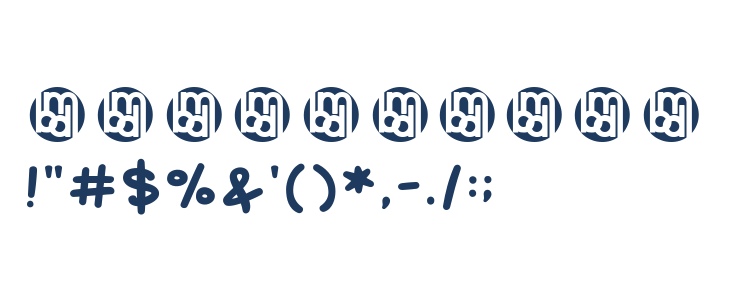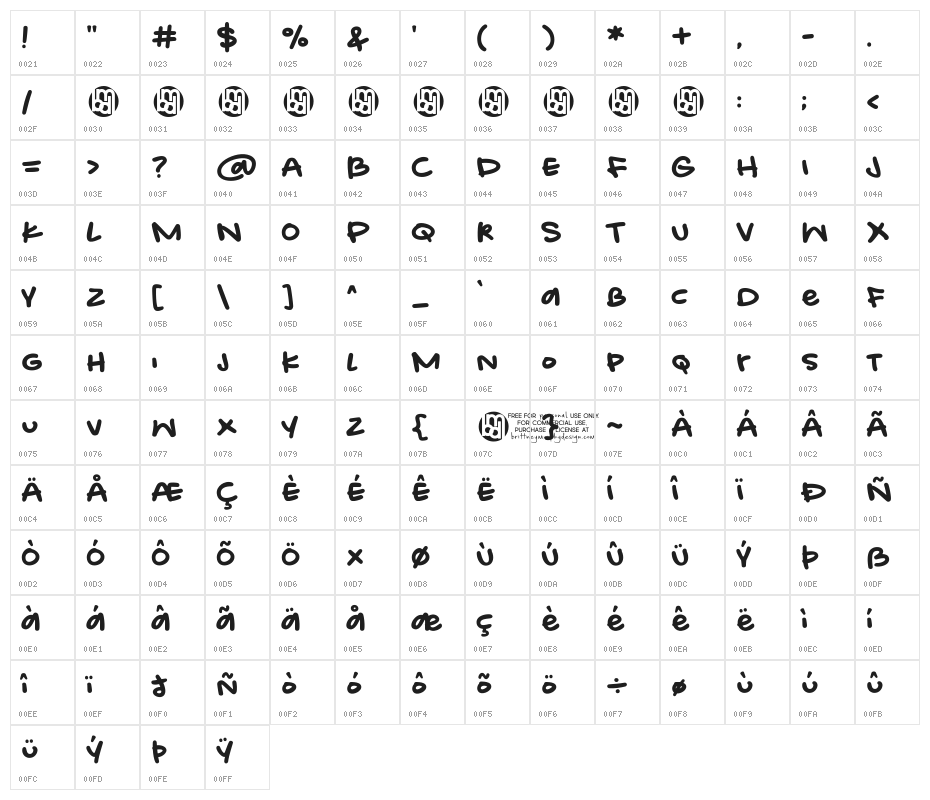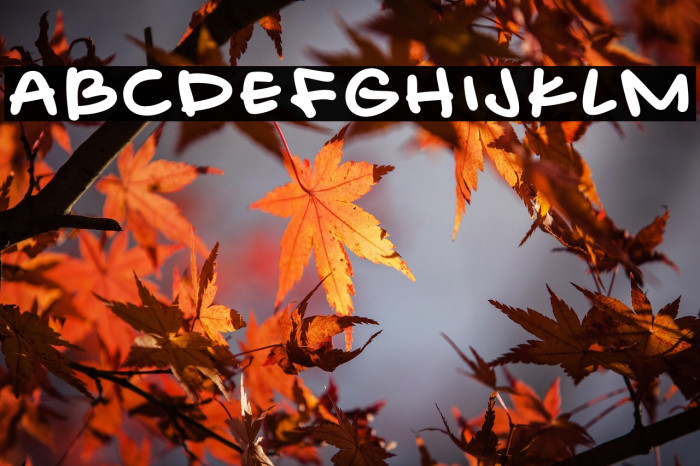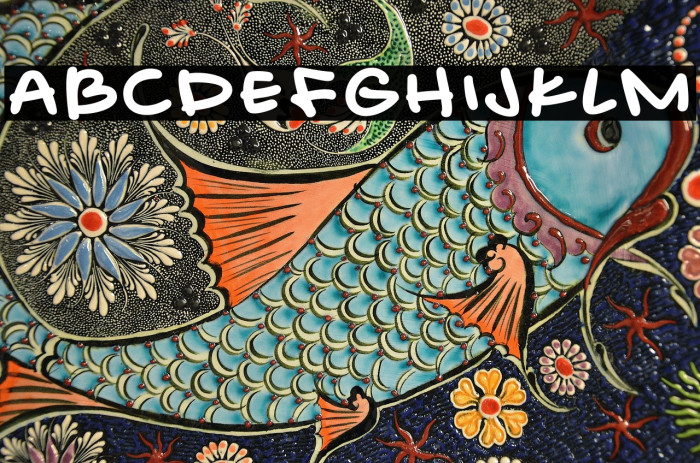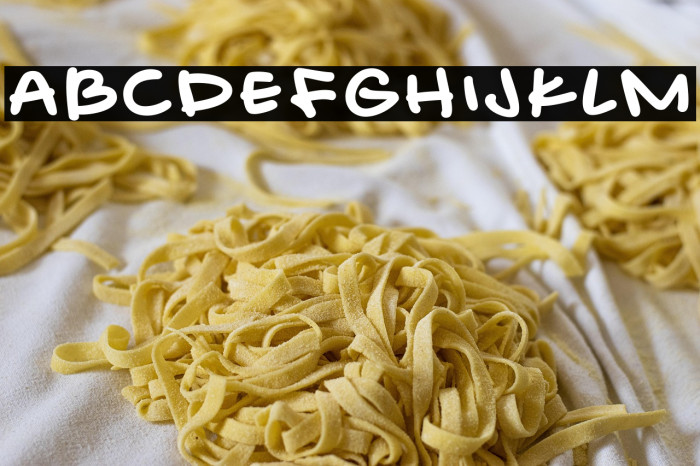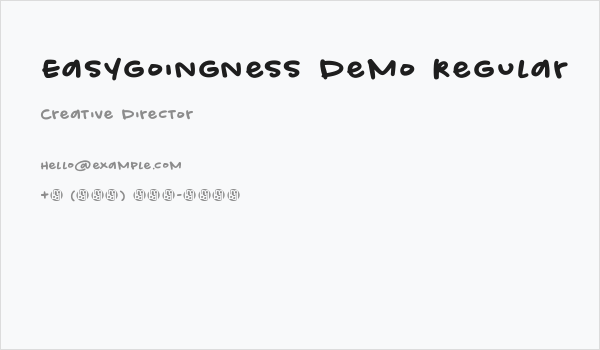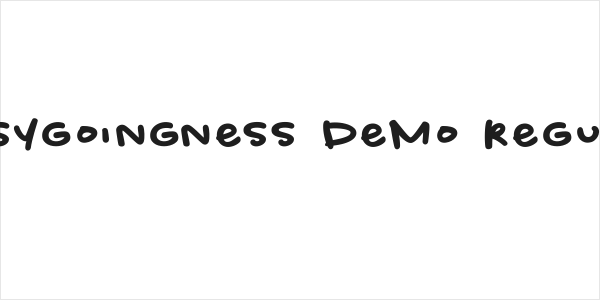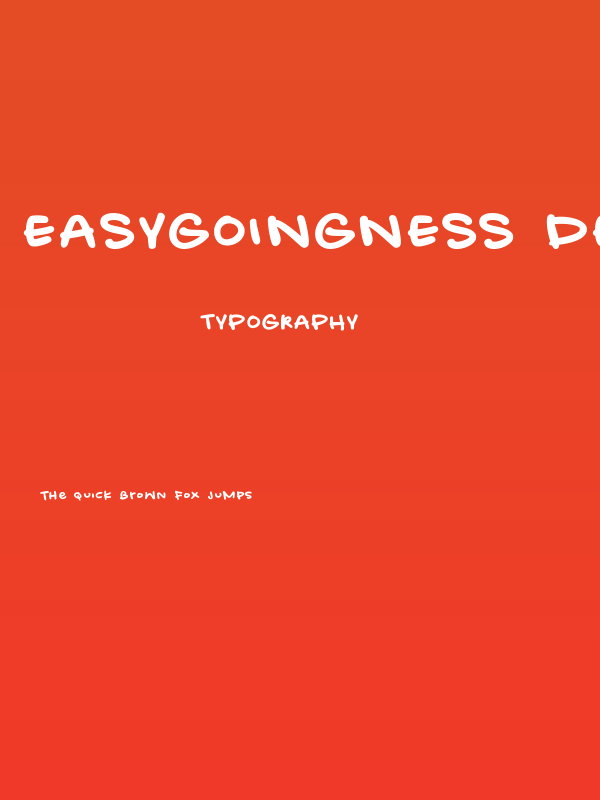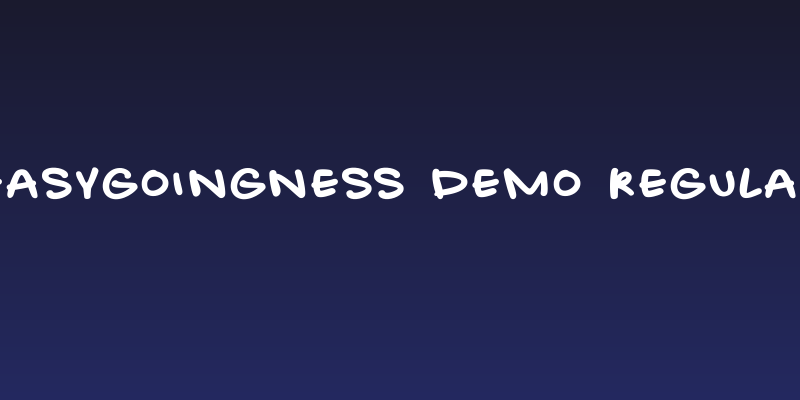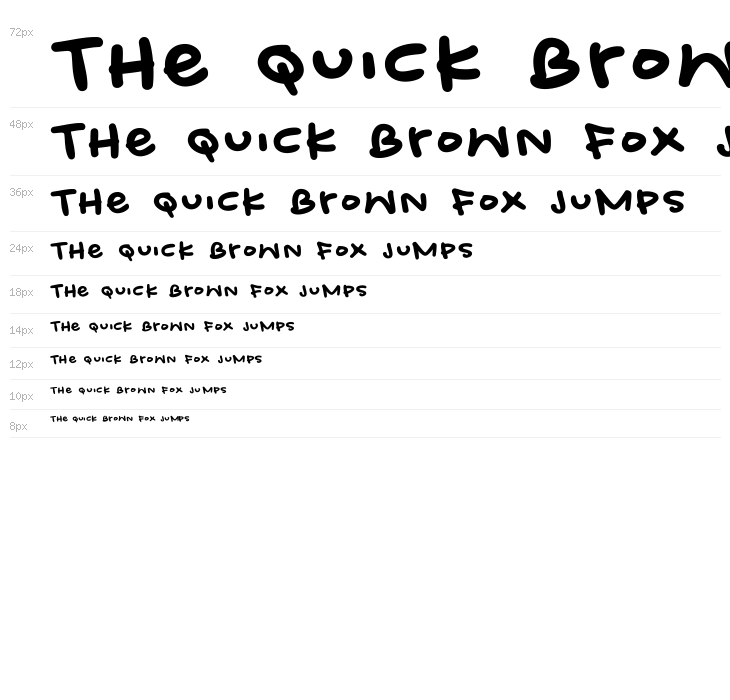
Easygoingness Demo Regular Font
Easygoingness Demo Regular Description
This playful and bold font features a handwritten style with a casual, friendly appearance. The characters are rounded and slightly irregular, giving them a lively and informal feel. The uppercase and lowercase letters maintain a consistent style, with a slight slant that adds to the dynamic look. The numbers and special characters are equally expressive, fitting seamlessly with the overall aesthetic. This font's unique personality makes it suitable for projects that require a touch of whimsy and creativity.
| Overall Style | Playful |
| Proposed Projects | Ideal for children's books, playful branding, greeting cards, and creative posters. |